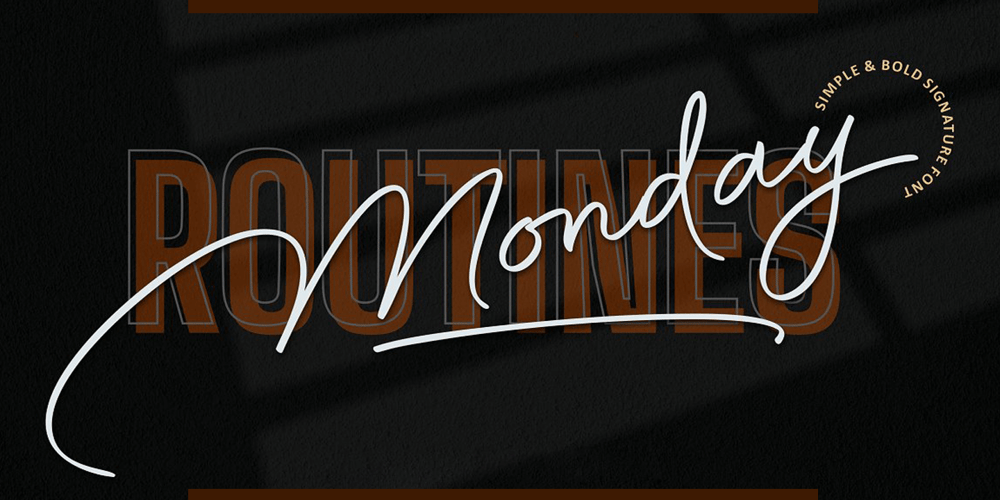
Monday Routines
Monday Routines font
Monday Routines Font Family was designed by Awaluddin Syarif and published by Walkeren. Monday Routines contains 1 styles and family package options. Say hello to Monday! The day when your spirit is reborn.Monday Routines Font comes to complement your warm spirit to start all your fun activities. Monday Routines Font is a simple and bold signature font style designed with decisive and strong lines, provides an authoritative impression.You can use Monday Routines Font for any purposes such as branding, signatures, product packaging, titles of books or novels, or just on social media posts.Monday Routines Font includes some alternates, ligatures, and a complete set of uppercase and lowercase letters, as well as multi-language support, numbers, punctuation and comes with various swashes.Thanks so much for looking and please let me know if you have any questions. Just contact us